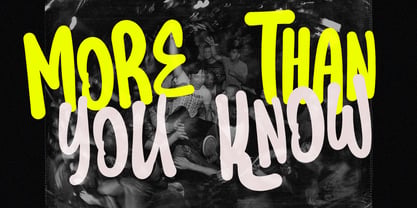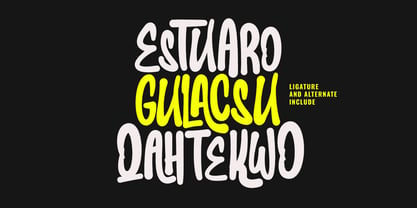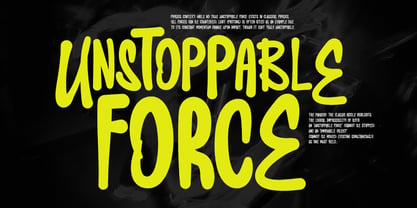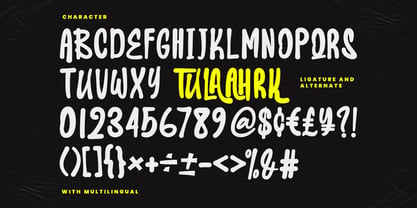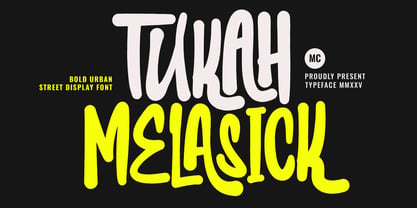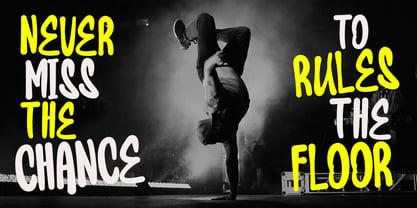
MC Tukah Melasick
by Maulana Creative
The MC Tukah Melasick Font Family was designed by Gilang Maulana and published by Maulana Creative. MC Tukah Melasick contains 1 styles. More about this family
Ignite your designs with the raw energy of the streets! Tukah Melasick is a bold, high-impact display font inspired by urban graffiti culture and modern streetwear aesthetics. Featuring thick, hand-drawn strokes and a rebellious spirit, this typeface is designed to grab attention instantly. Whether you're working on a gritty underground poster, a sleek brand, edgy social media graphics, or a dynamic sports logo, Tukah Melasick provides the perfect balance of "cool" and "readable." It comes packed with unique ligatures and alternates to give your typography a custom, hand-lettered feel.
Designers: Gilang Maulana
Foundry: Maulana Creative